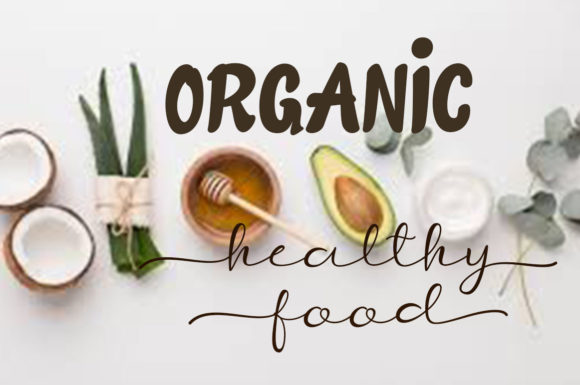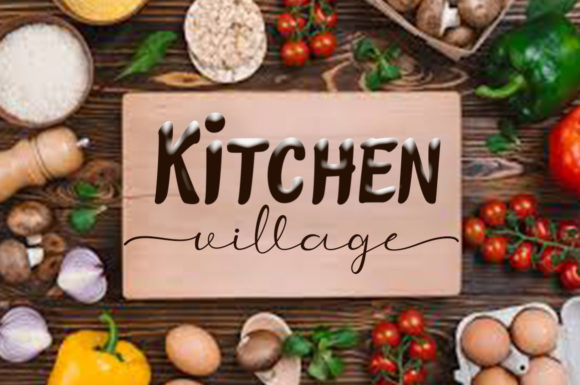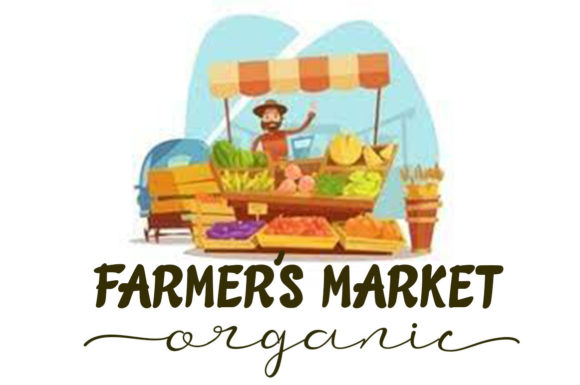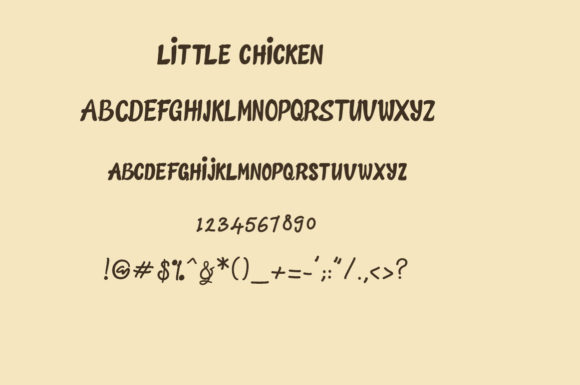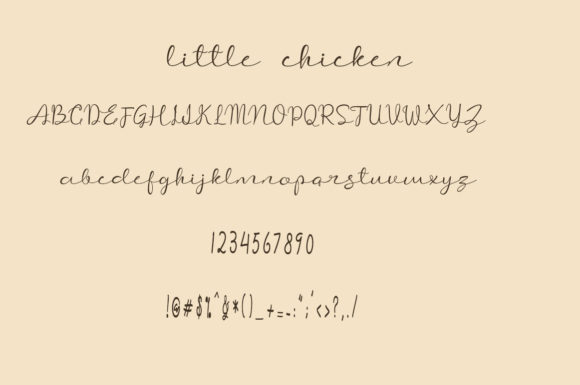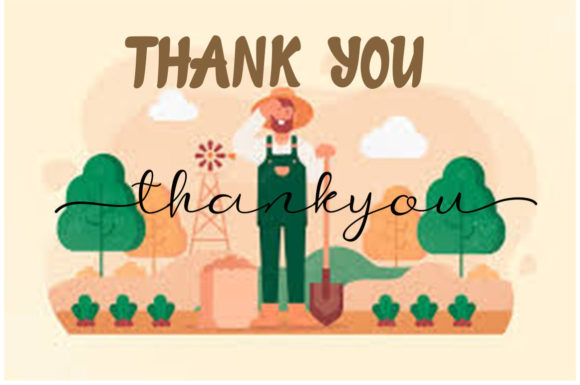
Introduction to Little Chicken Font
Little Chicken is a versatile duo font (script and display).
This font is inspired by a farmhouse design which is suitable for cute and attractive barn weddings, cards, letters or pretty much any creation that could benefit from a retro and dainty vibe Little Chicken is PUA encoded which means you can access all of the glyphs and swashes with ease.
Key Features of Little Chicken Font